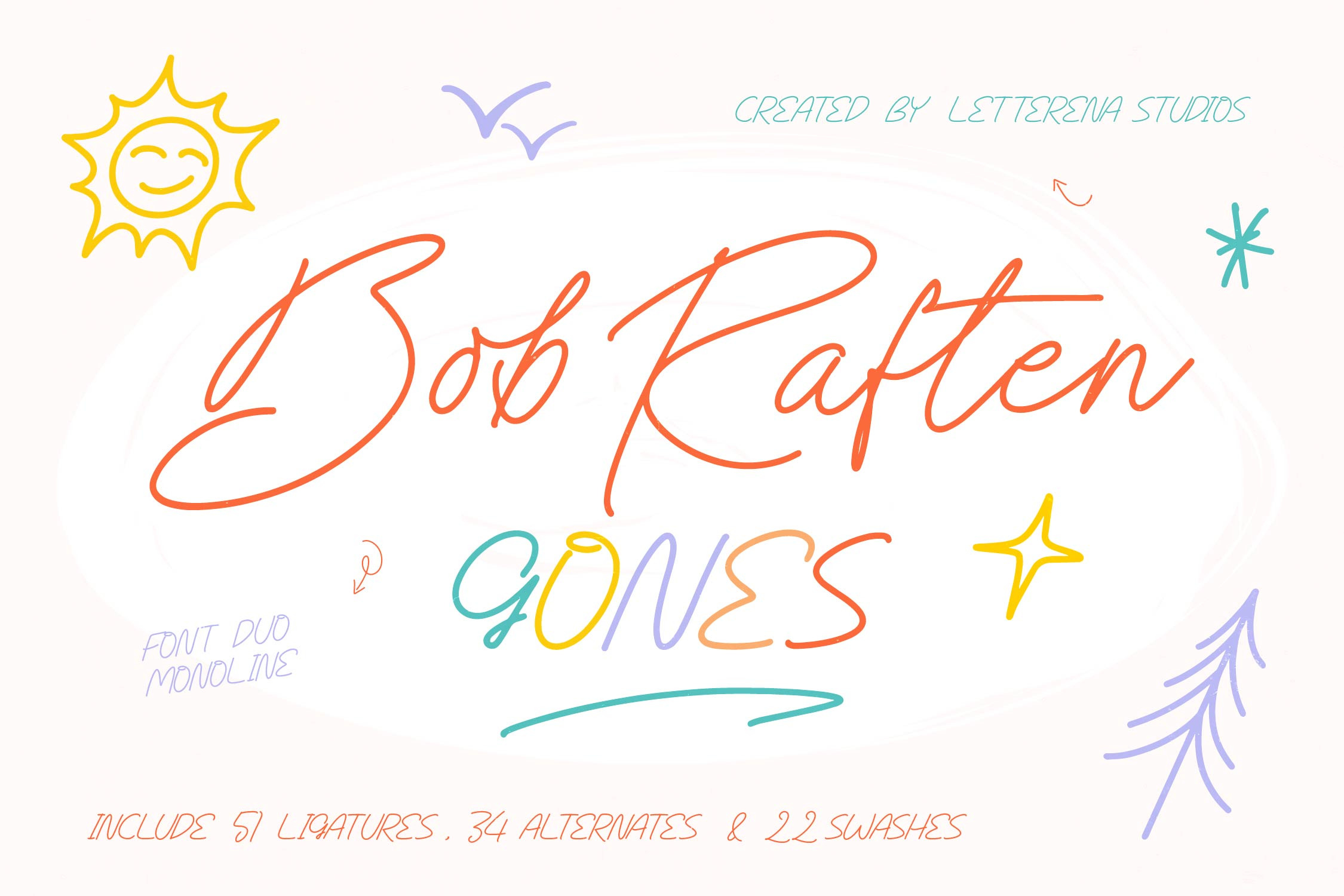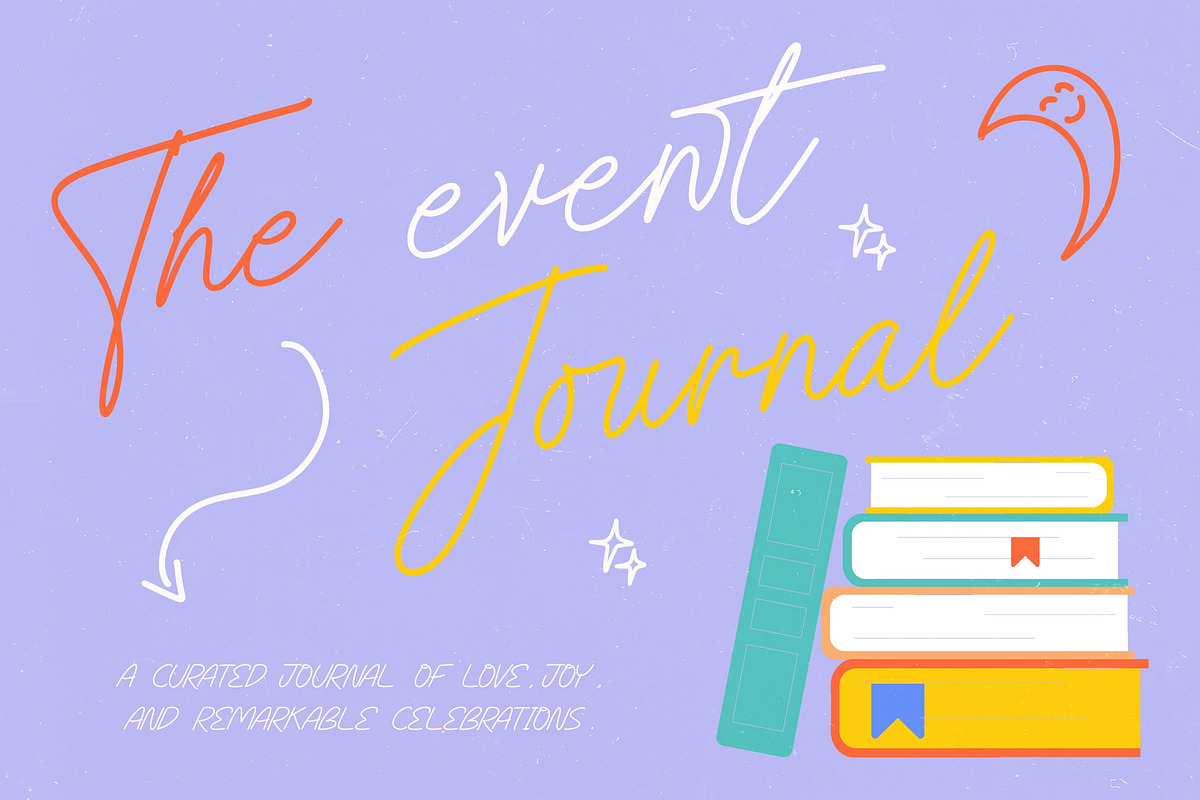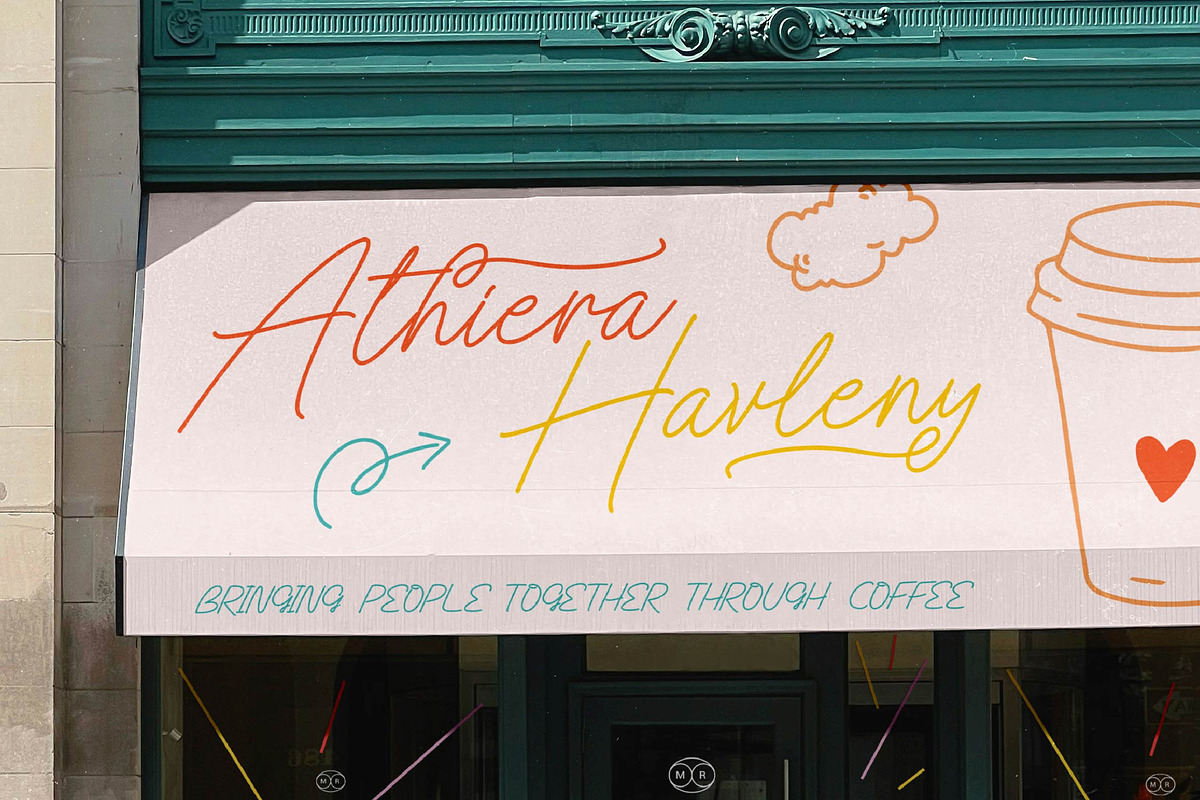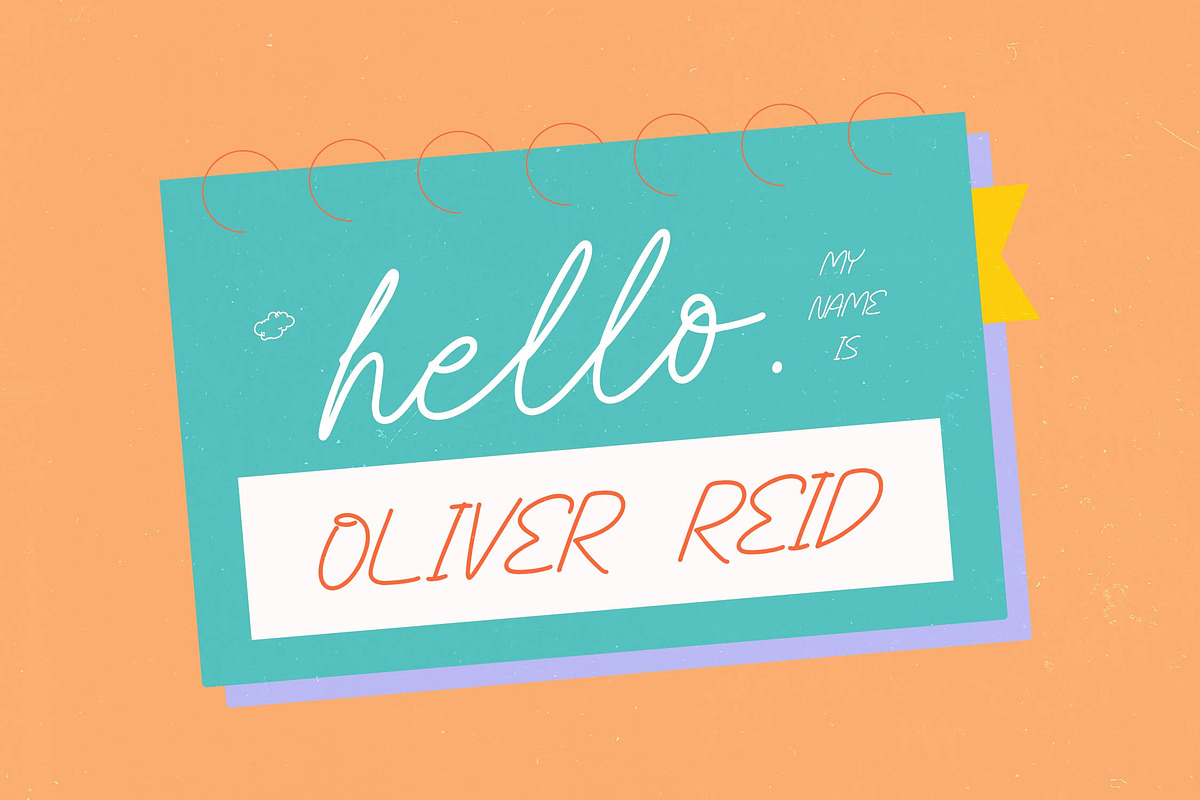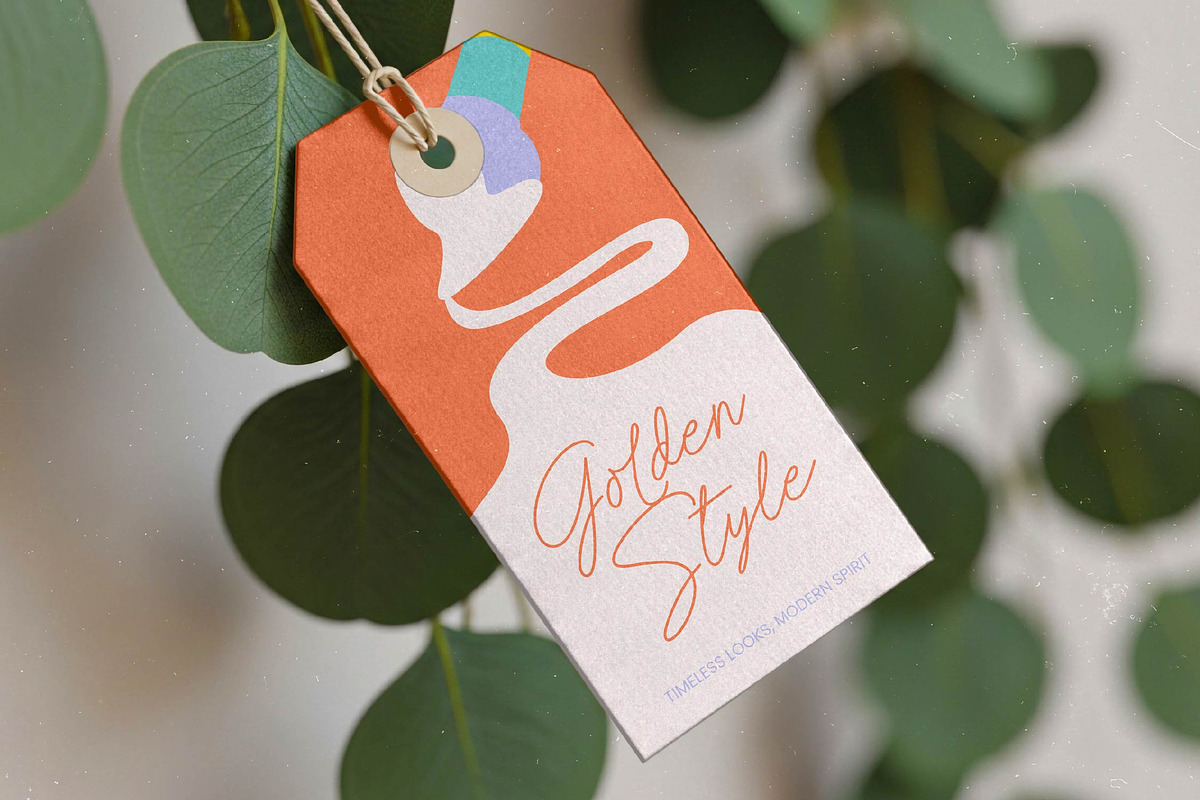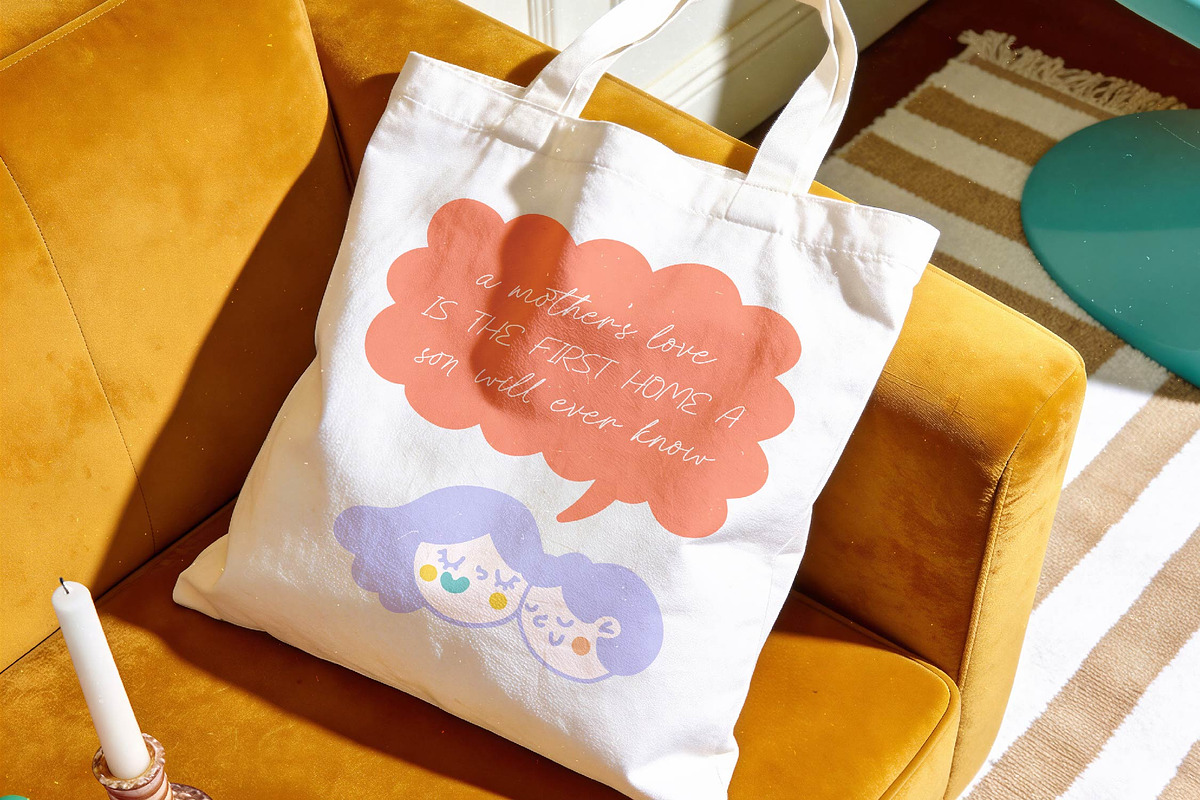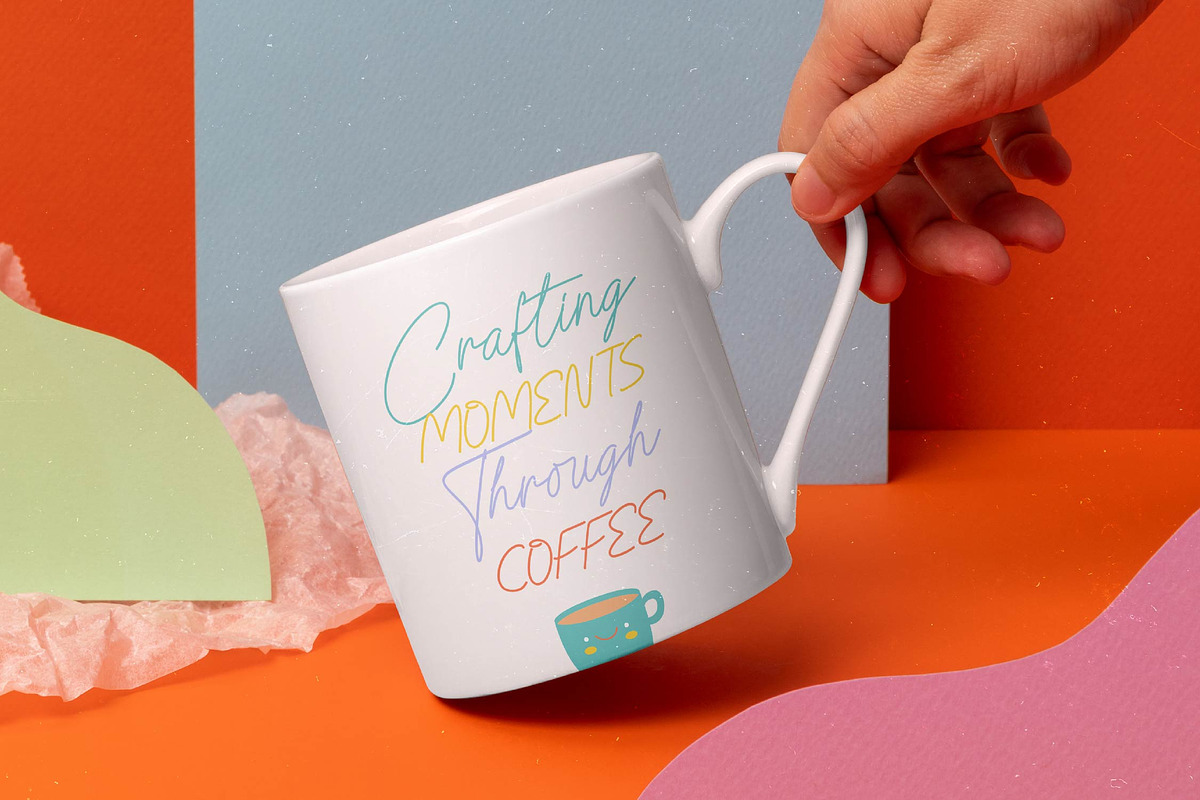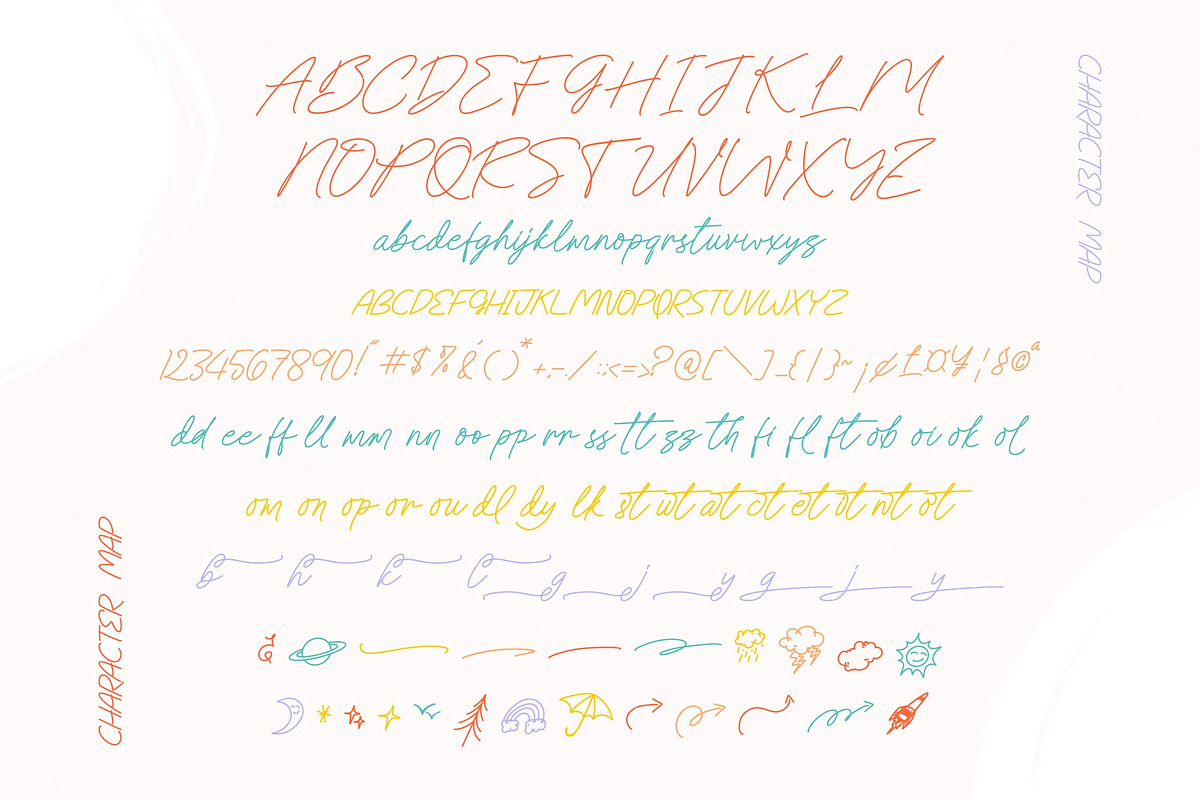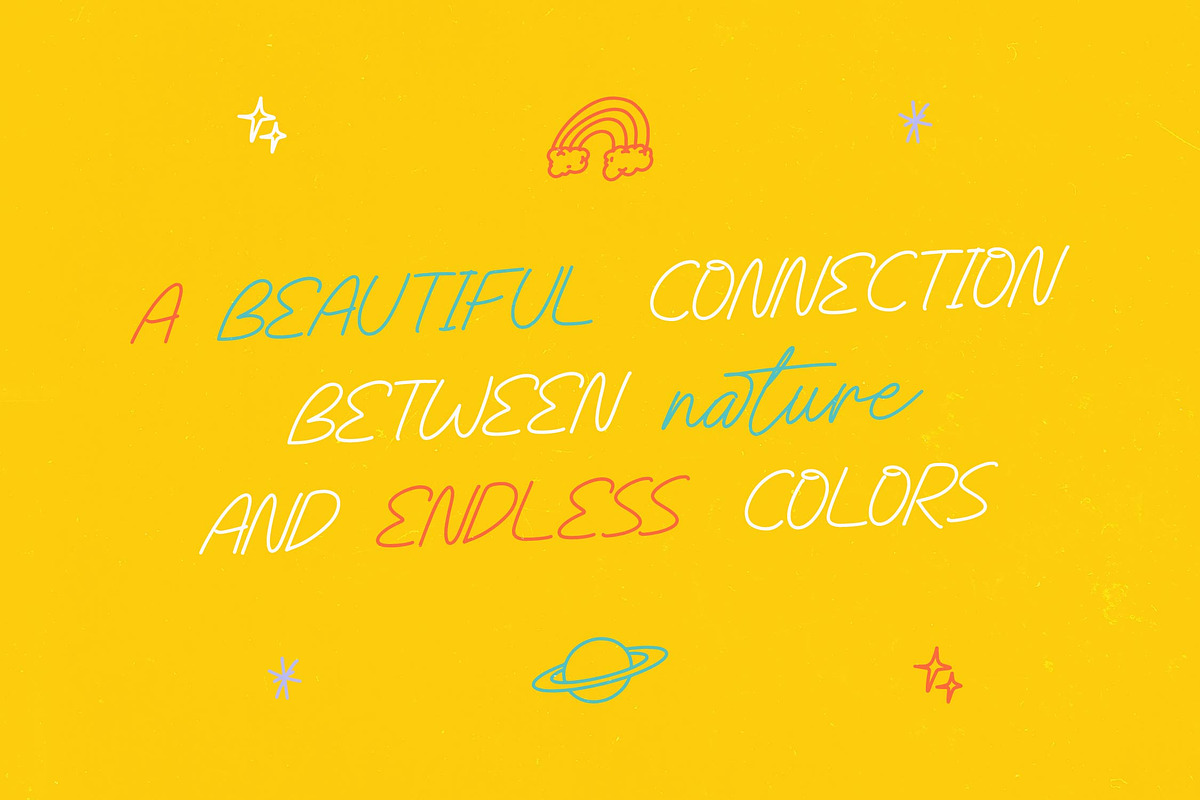
Bob Raften Gones Font Duo Monoline
Bob Raften Gones - Font Duo Monoline
Elevate your creative projects with the effortless charm of Bob Raften Gones - Font Duo Monoline. This typeface features a refined monoline weight that captures the essence of authentic handwriting. Its fluid, continuous strokes offer an organic aesthetic that is both playful and sophisticated, providing designers with a versatile toolkit of ligatures and alternates to ensure a custom, hand-crafted feel in every layout.
Experience a global design reach without compromising on style or functionality. With its extensive multilingual support, Bob Raften Gones - Font Duo Monoline adapts seamlessly across global markets, making it incredibly versatile for international projects. By providing a wide range of characters, it ensures that your brand message remains consistent and impactful regardless of the language, catering perfectly to a diverse audience.
Unlock endless possibilities for your next high-impact branding campaign with this unique typeface. The Bob Raften Gones - Font Duo Monoline is an ideal application for luxury branding, social media graphics, and editorial design. It is also perfect for boutique packaging, greeting cards, and lifestyle photography overlays where a human touch is essential to connect with consumers on a personal level.
Transform your digital and print assets into captivating visual stories with ease. By integrating Bob Raften Gones - Font Duo Monoline into your workflow, you gain access to a dynamic typography system that balances modernity and nostalgia. The inclusion of decorative swashes and artistic ligatures allows for seamless customization, ensuring that your creative vision stands out in a competitive marketplace with a distinctive signature style.